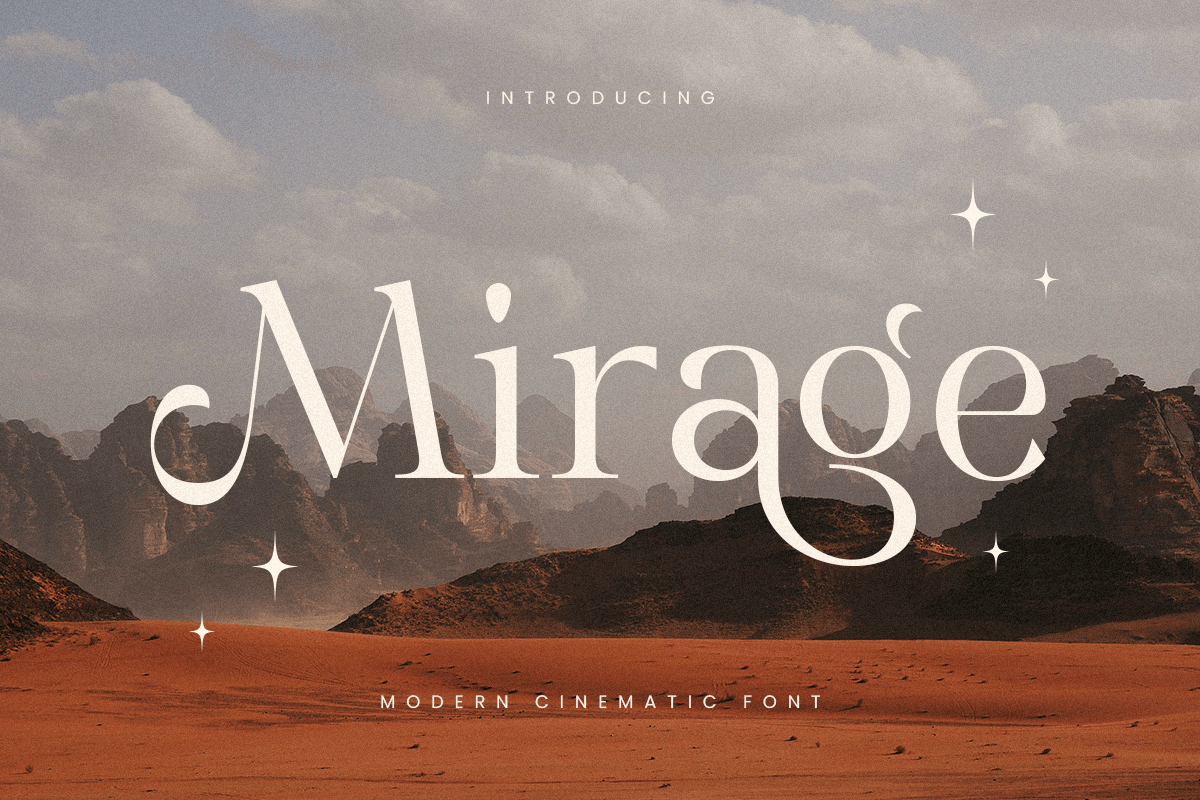
Mirage
-Modern Cinematic FontMirage is a modern cinematic font crafted to bring a touch of elegance and style to your branding projects. Its sleek lines and bold characters make it perfect for creating eye-catching logos that leave a lasting impression.
Designed with versatility in mind, Mirage shines in both digital and print mediums. Whether you're working on a film project, a sophisticated brand, or a high-end product line, this font provides a polished and professional appearance that enhances your visual identity.
With its unique character set and modern aesthetic, Mirage ensures that your designs stand out in any context, offering the perfect blend of creativity and clarity.